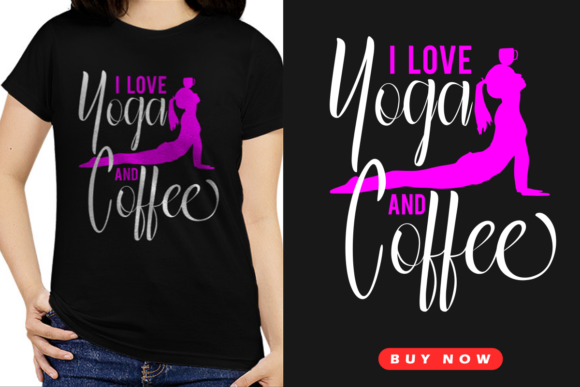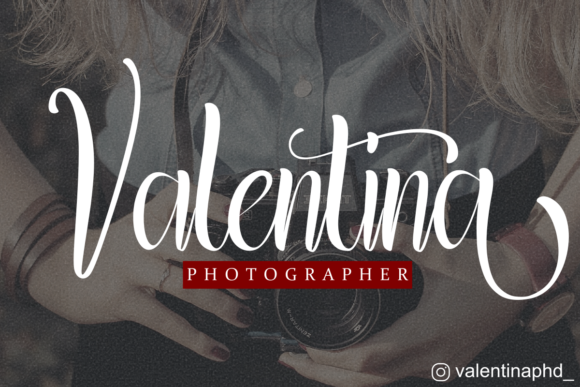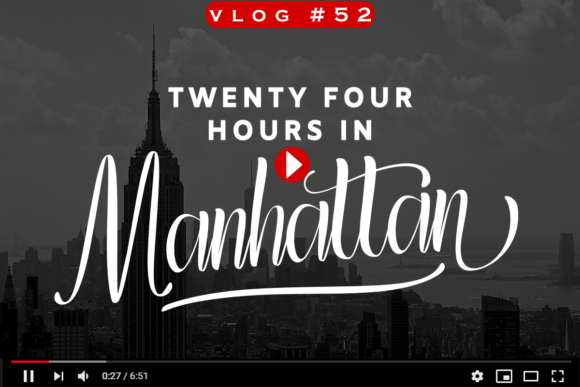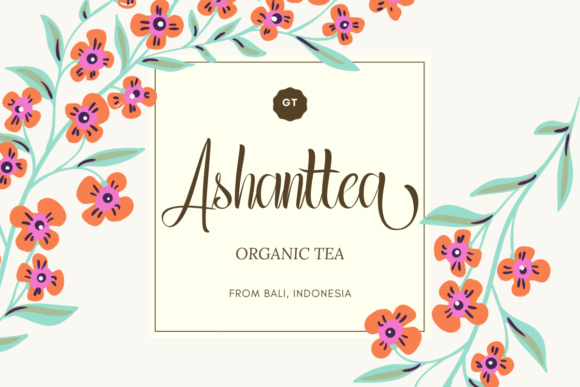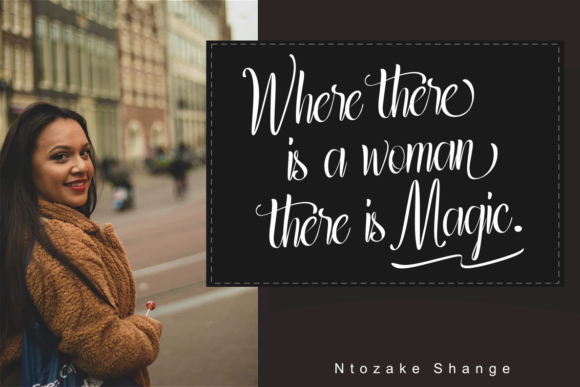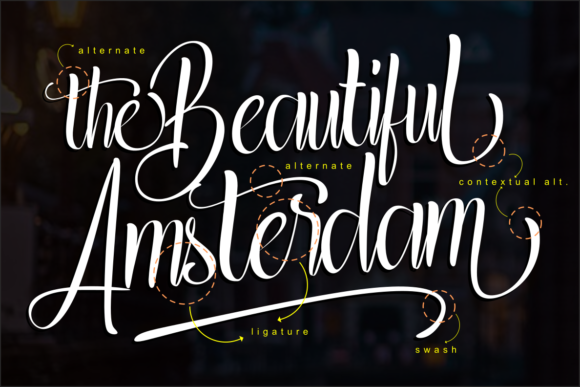
Grandstown Script Font
About Grandstown Script Font
Grandstown Script is a stunning handwritten font. It is PUA encoded which means you can access all of the glyphs and swashes with ease! It features a varying baseline, smooth lines, gorgeous glyphs and stunning alternates. It maintains its classy calligraphic influences while feeling contemporary and fresh. Fall in love with this font and bring your projects to the highest levels!